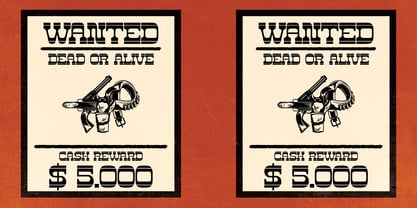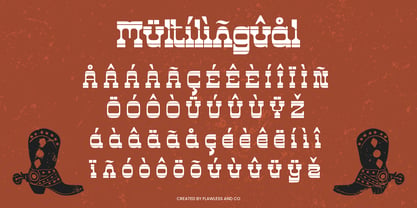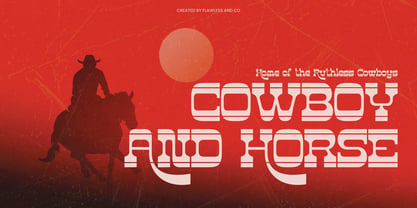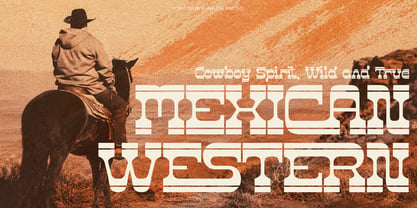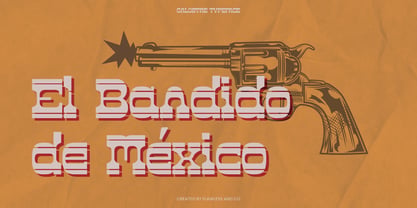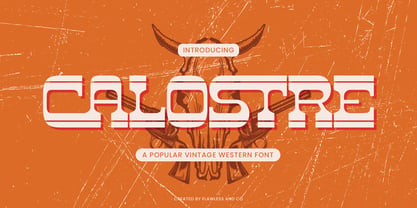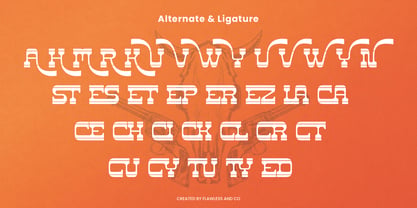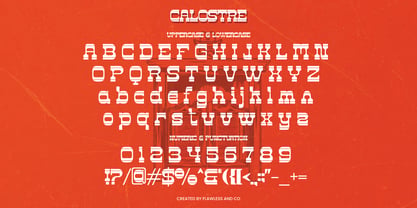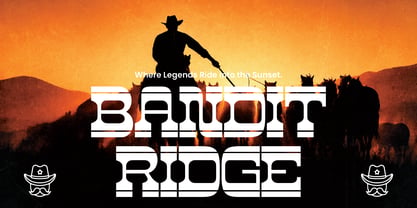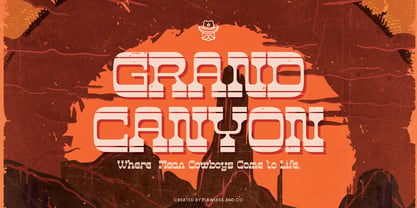
Calostre
by Flawlessandco
Calostre is a vintage Western-style typeface that exudes boldness and character. Inspired by classic cowboy heritage and Mexican-American frontier aesthetics, Calostre combines sharp structure with distinctive horizontal line details to deliver a look that’s both retro and contemporary. Its strong letterforms and decorative elements make it the perfect choice for designs that demand impact—whether it's for adventure-themed branding, vintage posters, product packaging, or bold editorial layouts.
Features :
Multilingual, Uppercase alphabet A-Z, Lowercase alphabet a-z, Numbers 0-9, Some punctuation, Alternates & Ligatures